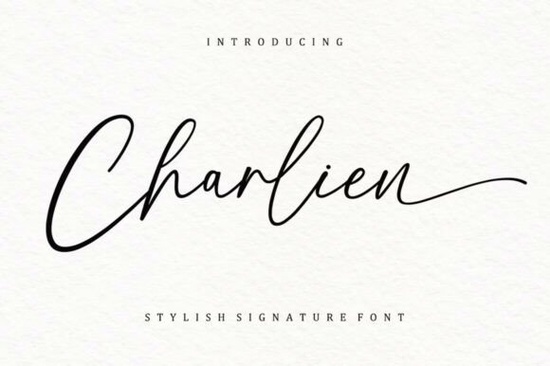
If you're looking for a signature script font that feels personal, elegant, and ready for real-world use like wedding stationery, boutique packaging, or social media graphics then Charlien Font is worth your attention. It’s not overly ornate or hard to read, but it carries the warmth and flow of hand-drawn lettering, with thoughtful details like ligatures and stylistic alternates built in. Designed specifically for creatives who need flexibility without sacrificing charm, Charlien works well across both digital and print projects especially where authenticity and refinement matter.
What makes Charlien different from other script fonts?
Many script fonts fall into one of two camps: too stiff to feel handmade, or so decorative they’re hard to pair with other elements. Charlien sits comfortably in the middle. Its strokes have gentle contrast and natural rhythm, and the lowercase letters connect smoothly without awkward joins. The uppercase forms stand out with subtle flair not flashy, but confident. You’ll notice how the “ff”, “fi”, and “fl” ligatures flow together naturally, and how alternate characters (like a swash “y” or a looping “t”) give you options without needing extra software or manual tweaks.
Where does Charlien work best?
Think about where handwritten elegance adds value:
- Wedding invitations and day-of signage It pairs beautifully with soft watercolor backgrounds or minimalist layouts.
- Fashion brand names and tags Works well on garment labels, lookbook covers, or Instagram story highlights.
- Print-on-demand products Tote bags, mugs, and greeting cards gain personality without overwhelming the design.
- Small business branding A café logo, artisan soap label, or local florist’s business card gains quiet sophistication.
You don’t need to be a typography expert to use it well. Start with a simple layout maybe just a name or short phrase and let Charlien carry the tone. Then layer in a clean sans-serif for supporting text (like body copy or pricing) to keep things balanced.
How does it compare to other popular script fonts?
- Test it at different sizes some script fonts lose clarity below 24pt; Charlien remains legible down to ~18pt in print, but always proof your final output.
- Use the lowercase version for longer text blocks (like quotes or taglines); reserve uppercase for headings or monograms where impact matters most.
- Pair it thoughtfully: avoid other scripts or overly decorative fonts nearby. A neutral sans-serif (like Montserrat, Lato, or Inter) usually works best as a companion.